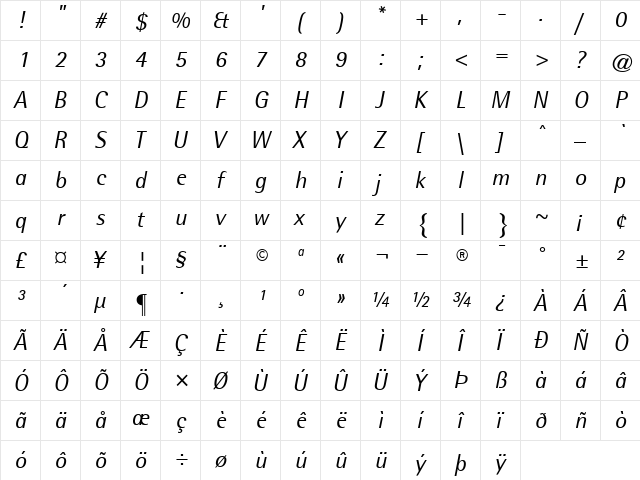
RotisSemiSans56 RomanItalic
Design Context for RotisSemiSans56 Typeface
RotisSemiSans56 takes a measured approach to typography — its balanced proportions and neutral character make it a reliable workhorse for both digital and print work. The dynamic lean of this cut emphasises speed and emphasis in any layout.